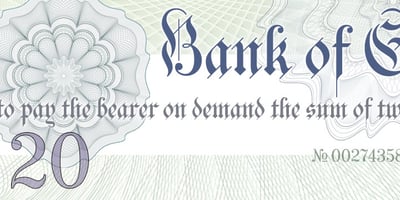
Bank Of England
Bank Of England font
Bank Of England Font Family was designed by published by K-Type. Bank Of England contains 1 styles and family package options. Bank of England is loosely based on the blackletter lettering from Series F English twenty pound banknotes introduced in 2007. The font takes inspiration from German Kanzlei (Chancery) typefaces and the English calligraphers John Ayres and George Bickham. For designers using OpenType-aware applications, Bank of England includes Swash versions of all uppercase letters and ampersand, Alternates for nine lowercase letters and capital Z, and sixteen ornamental flourishes. Western European accented characters are included, and also a simplified St. Edward’s Crown (Elizabeth II’s coronation crown) at the Section (§) and PlusMinus (±) keystrokes (Windows Alt-0167 and Alt-0177).